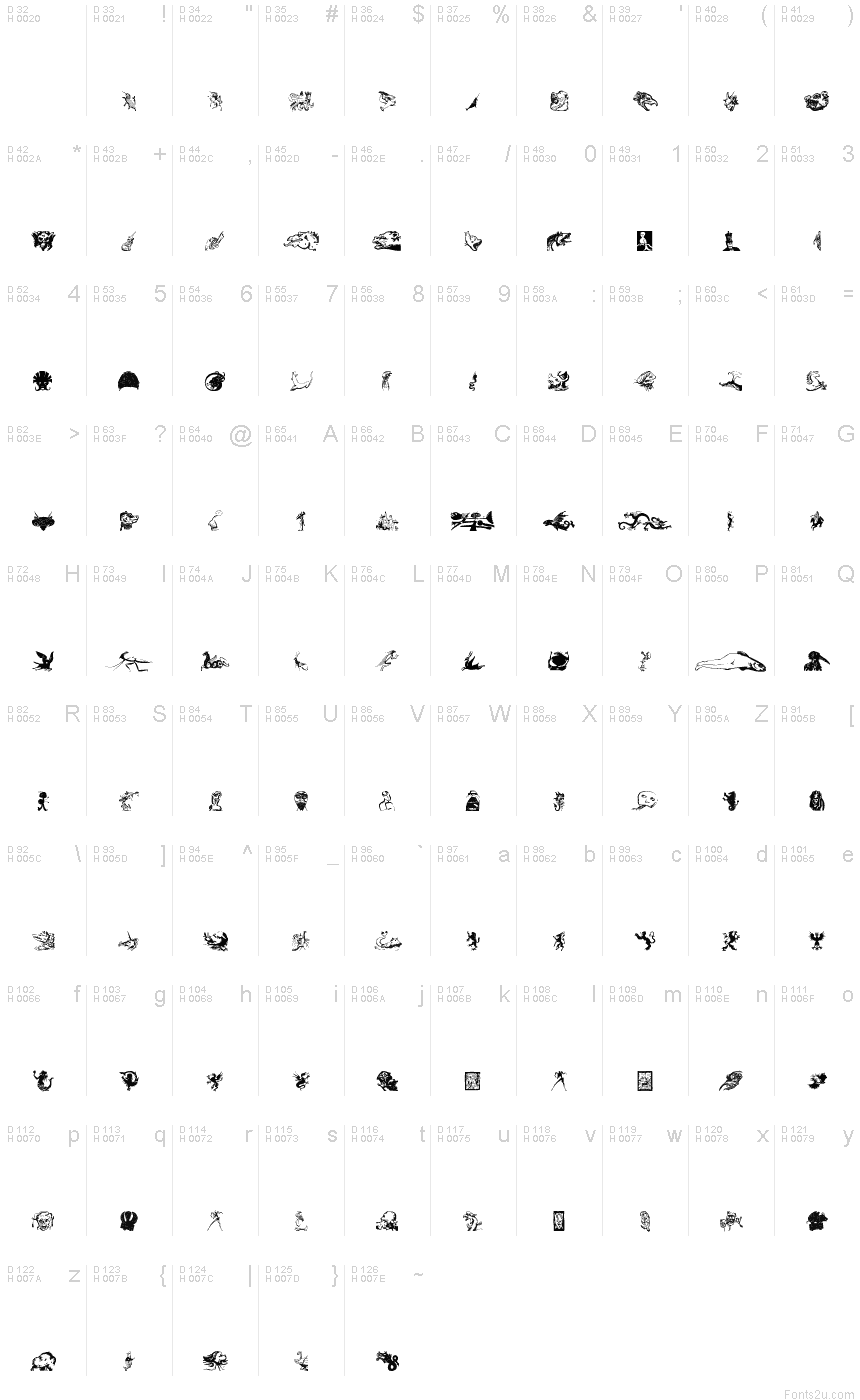
Mythologicals One is a free dingbat typeface with fantastic and horror-themed icons, mixing animal-like silhouettes, a masked face, a winged creature, and a spiky bat-wing motif. The set feels hand-cut and dramatic, with strong outlines and uneven, sketchy edges that give each symbol a rough, folkloric edge.
Mythologicals One works well for poster art, game menus, fantasy titles, Halloween invitations, album covers, and tattoo-style graphics because the symbols are bold enough to hold attention on their own. This free font also fits logos, chapter ornaments, and themed packaging where you want a small set of mythic marks that can be dropped in as accents or repeated as a visual system.